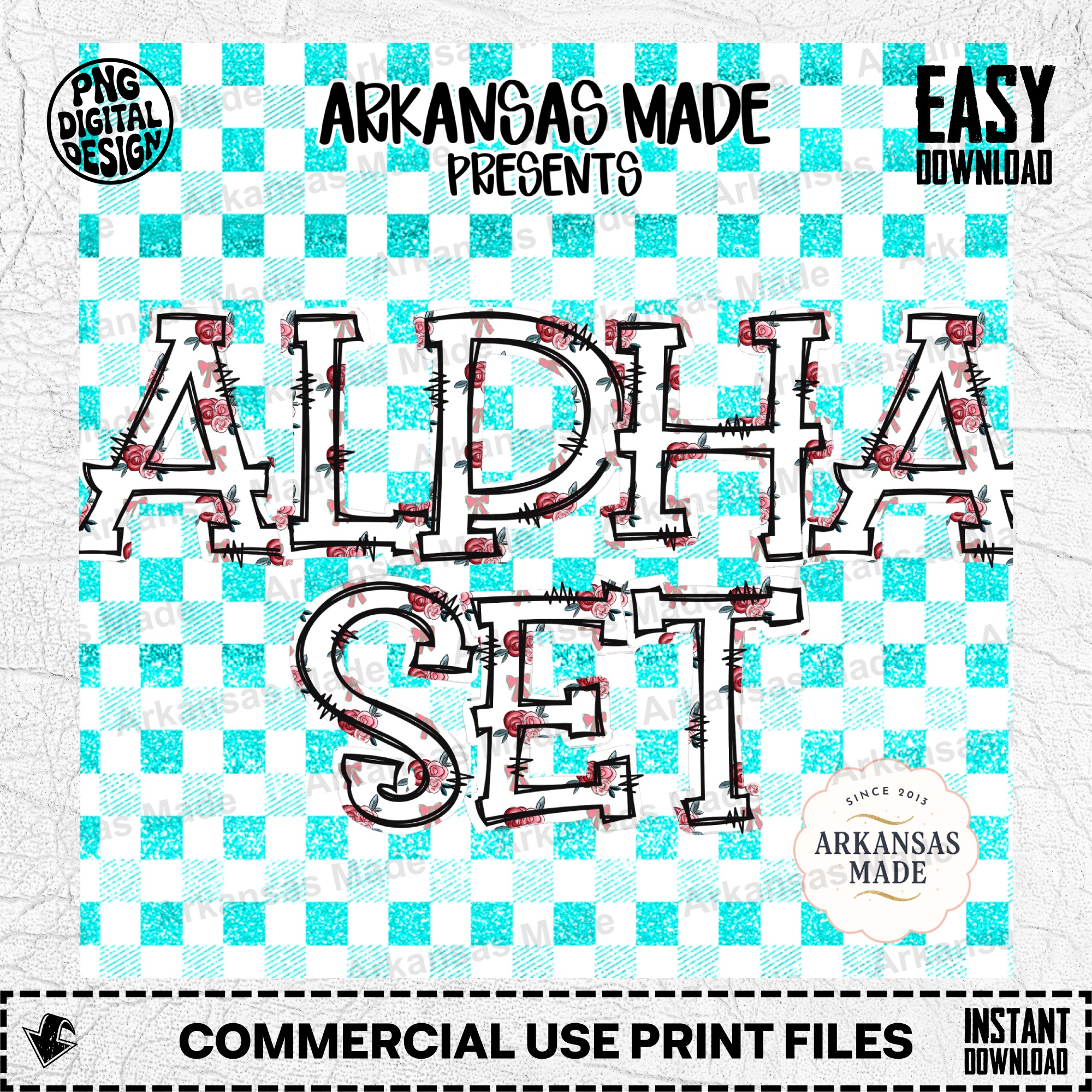
Adorn your creations with this charming Floral Rose Bow Alphabet PNG Letters Digital Download Alpha Set, perfect for adding a touch of rustic elegance to any project. Each hand-drawn letter features delicate watercolor roses and sweet pink bows, embodying a beautiful shabby chic or cottagecore aesthetic. Ideal for crafters, DIY enthusiasts, and small business owners, this versatile set transforms ordinary items into personalized treasures. Use these unique letters for custom apparel, heartfelt gifts, baby shower decor, wedding stationery, or unique scrapbooking designs for any special occasion.